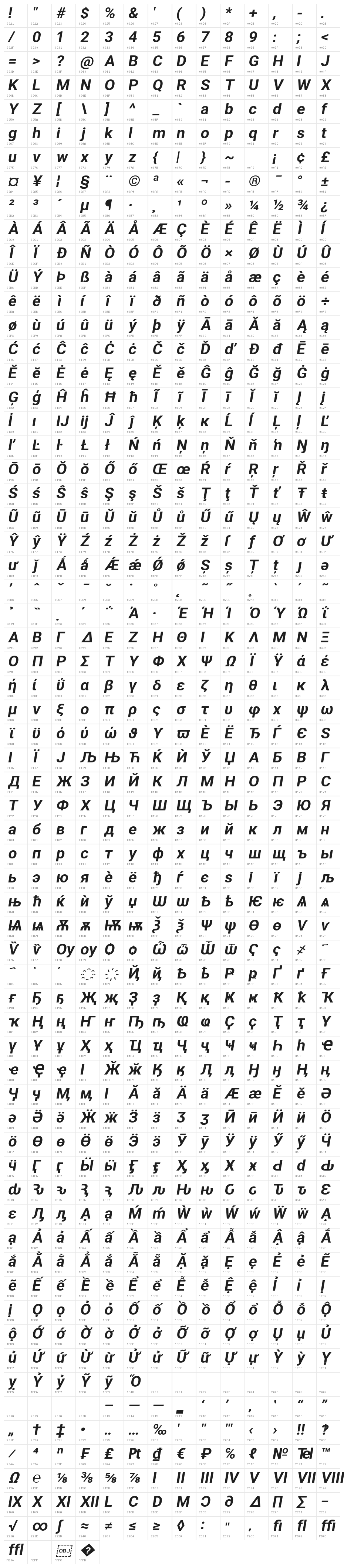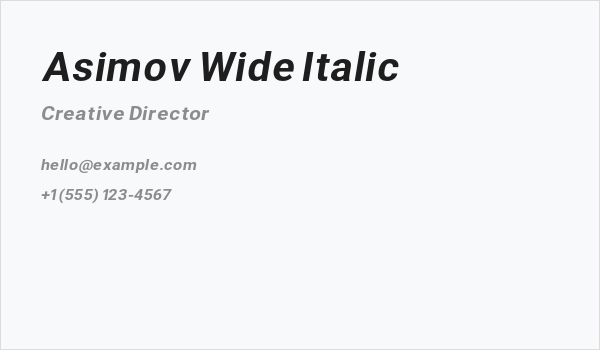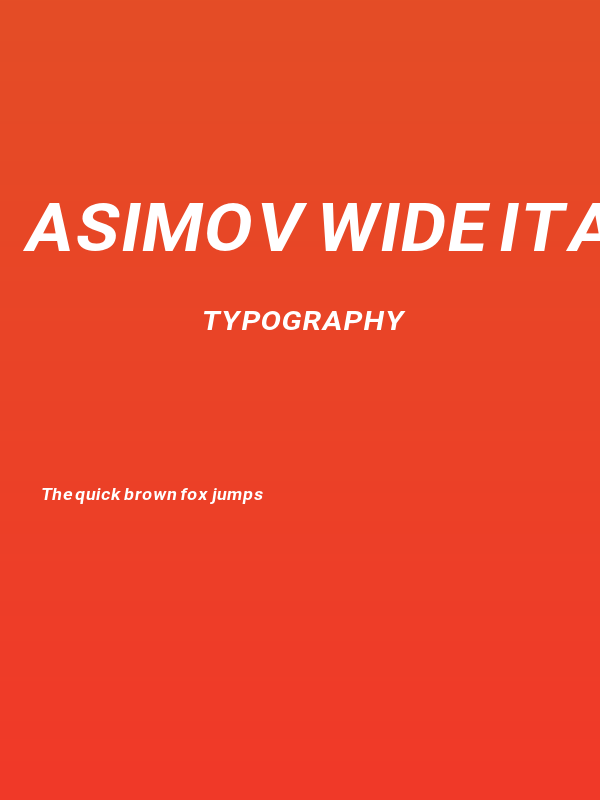
Asimov Wide Italic Font
Asimov Wide Italic Description
This font exhibits a modern and sleek design with a wide stance and italicized form. The characters are bold and slightly slanted, giving a sense of motion and dynamism. The uppercase and lowercase letters maintain a consistent style, with smooth curves and clean lines. The numerals are clear and easy to read, matching the overall aesthetic of the alphabet. Special characters are well-integrated, ensuring versatility in various applications. The font's wide appearance makes it stand out, while the italic style adds a touch of elegance and sophistication.
| Proposed Projects | Ideal for branding, advertising, and editorial design where a modern and dynamic look is desired. |